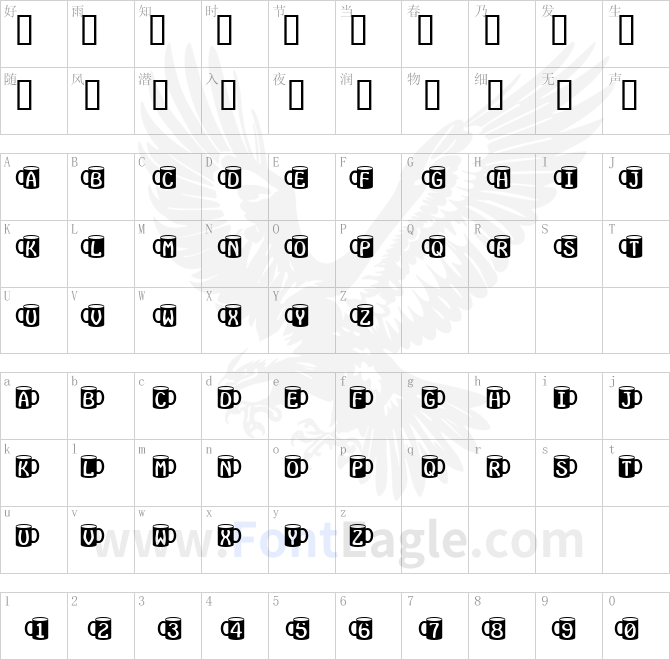
- Font name:CoffeeMug
CoffeeMug is a great font, widely used in graphic design, single-page menu design, poster design and other fields, and is deeply loved by designers.CoffeeMug download.